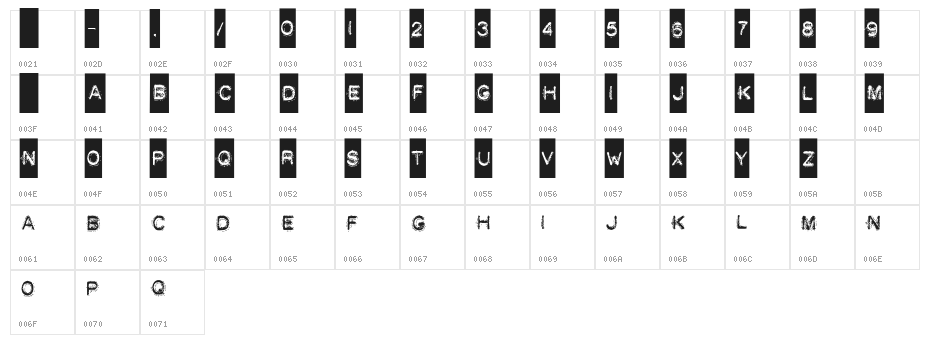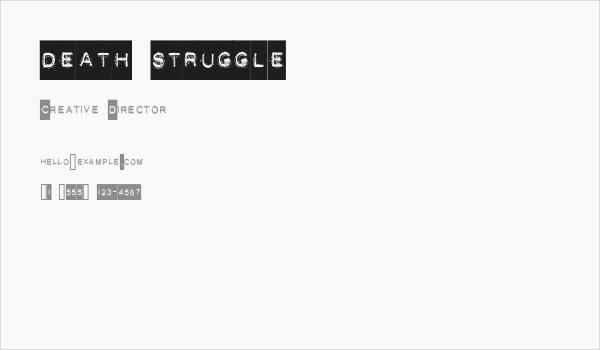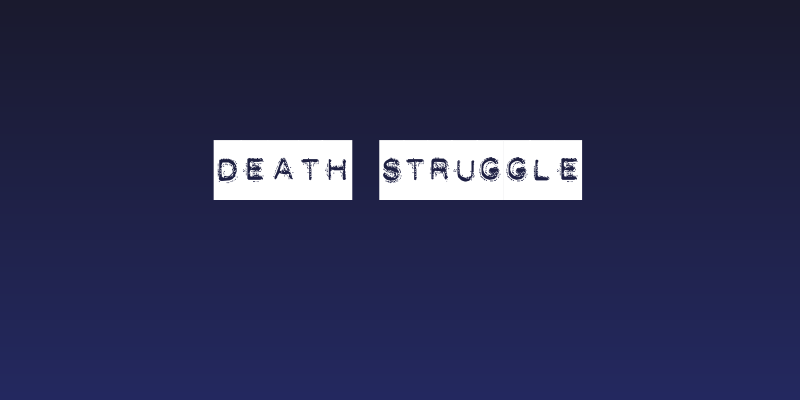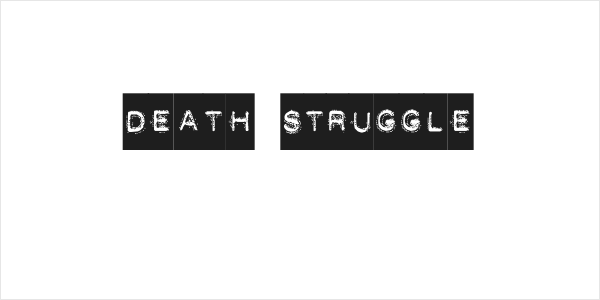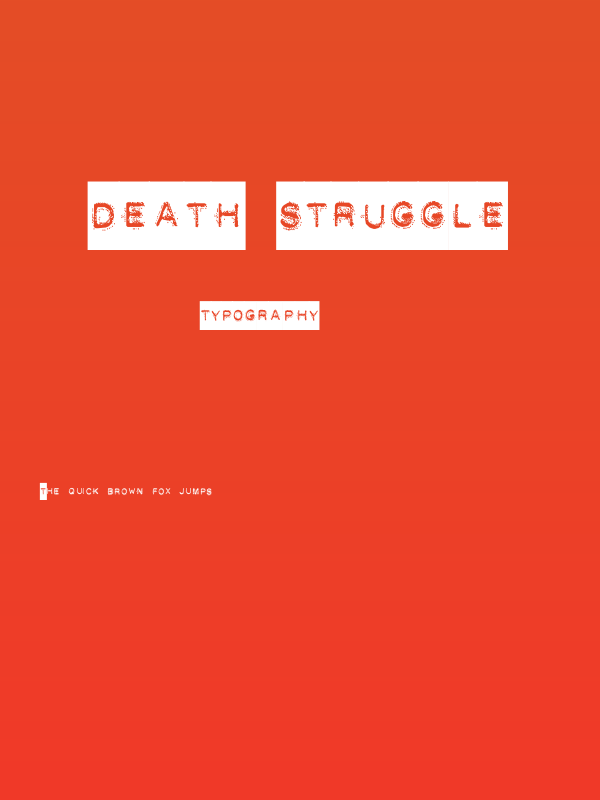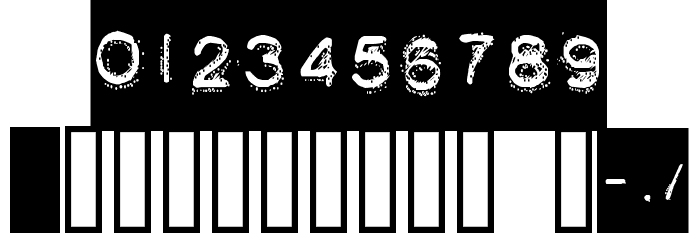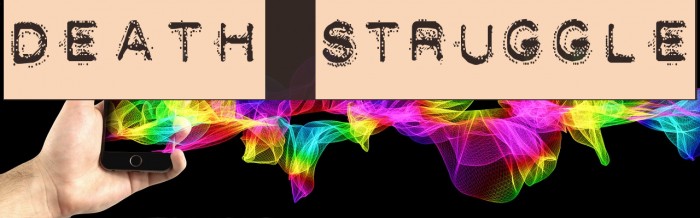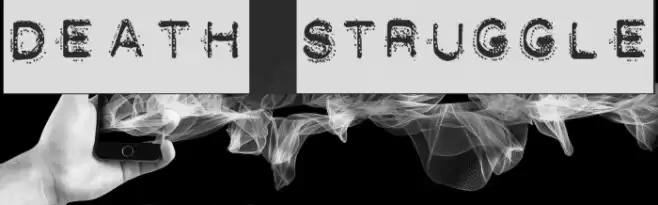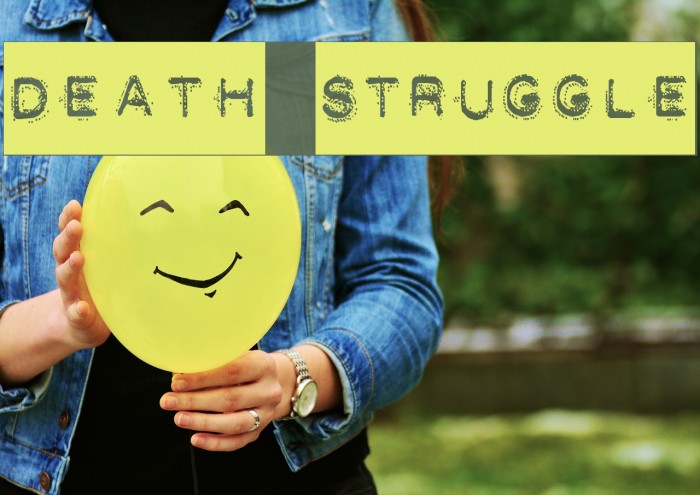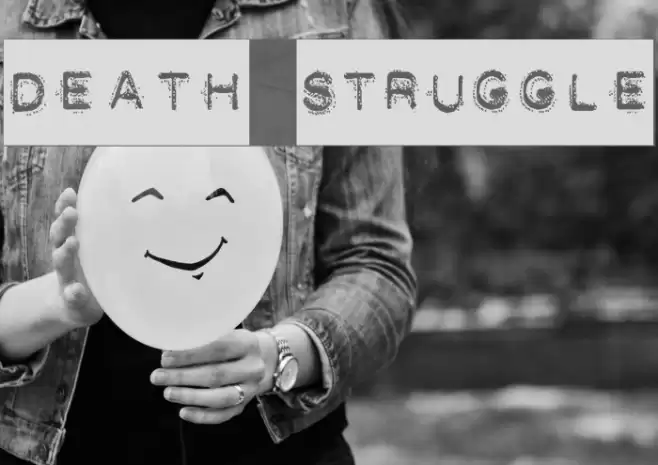
DEATH STRUGGLE Font
DEATH STRUGGLE Description
This font features a distressed, grunge style with a textured appearance that gives it a worn, vintage look. The characters are bold and uppercase, with a rough, uneven surface that suggests a sense of decay or erosion. The lowercase letters maintain the same distressed aesthetic, providing a cohesive look across different text cases. Numbers and special characters follow the same design, ensuring consistency throughout. This font's unique style makes it ideal for projects that require a rugged, edgy feel, such as music album covers, posters, or branding for alternative or punk-themed events.
| Overall Style | Vintage, Grunge |
| Proposed Projects | Ideal for music album covers, edgy posters, alternative branding, and punk-themed events. |